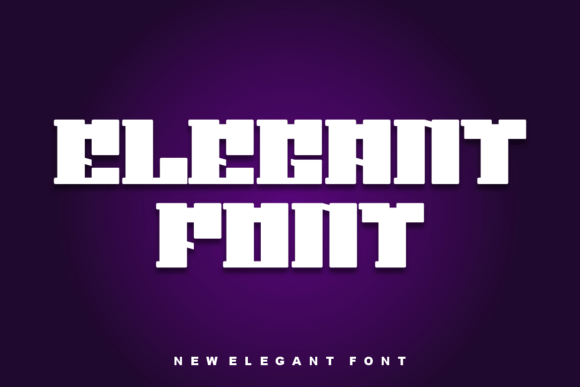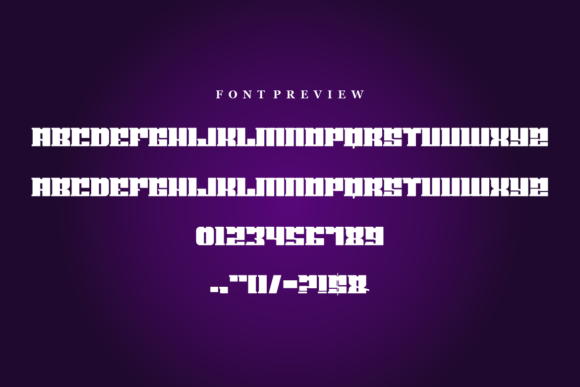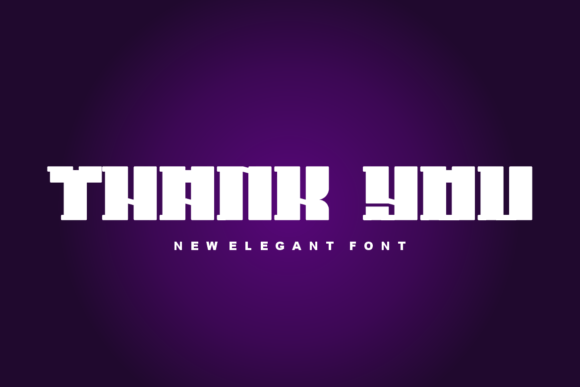
The Perfect Font for Your Next Design Project
Have you ever stared at a blank canvas, waiting for the perfect font to bring your design to life? That’s exactly what happened to us when we discovered the Bagenir Font – a modern display font that’s as bold as it is authentic. With its unique character and versatility, this font is a game-changer for any branding project.
Whether you’re creating a logo, working on an esports project, or simply looking for a font to elevate your design, the Bagenir Font is an outstanding choice. Its wide range of applications makes it a valuable asset for designers, and its modern aesthetic ensures it stays relevant in today’s fast-paced design world.
Bagenir Font Key Features
- Font Family: Bagenir is a sans-serif font family.
- Unique Characteristics: Bagenir features a clean and modern design with a unique blend of geometric and organic elements.
Bagenir Font Review
I recently had the chance to work with the Bagenir Font, and I have to say, it’s a unique and interesting addition to any design project. ✨ Here are some of its strengths:
- Distinctive style**: The Bagenir Font has a distinct, elegant style that sets it apart from more traditional fonts. It’s perfect for designers who want to add a touch of sophistication to their work.
- High legibility**: Despite its unique style, the Bagenir Font is highly legible, making it easy to read even in smaller font sizes.
- Good versatility**: The Bagenir Font comes in a range of weights and styles, making it easy to adapt to different design projects and themes.
Of course, no font is perfect, and the Bagenir Font has some limitations that designers should be aware of:
- Limited language support**: The Bagenir Font may not support all languages, which could be a limitation for designers working on multilingual projects.
- Not ideal for body text**: While the Bagenir Font is great for headings and titles, it may not be the best choice for body text due to its high x-height and unique style.
- Some compatibility issues**: Some designers may experience compatibility issues with the Bagenir Font, particularly in older software or operating systems.
Overall, the Bagenir Font is a great choice for designers who want to add a touch of elegance and sophistication to their work. While it has some limitations, its unique style and high legibility make it a great addition to any design project.
Use Bagenir Font for titles, headings, and emphasis to add a touch of elegance to your designs.
Experiment with different font sizes and styles to create visual hierarchy and balance in your designs.
Bagenir Font is perfect for:
- Book covers and publishing materials
- Wedding and event signage
Alternatives to Bagenir Font for Designers
Monserrat is a popular sans-serif font that is highly legible and versatile. It’s ideal for use in digital design, particularly for headings and titles, due to its modern and sleek appearance. Montserrat is more geometric than Bagenir, with cleaner lines and a more condensed feel, making it suitable for use in tight spaces.
Merriweather is a classic serif font that is perfect for use in body text and longer passages. Its traditional and elegant feel makes it suitable for use in print design, particularly in books, magazines, and other publications. Merriweather is more formal than Bagenir, with a more traditional feel, but it lacks the modern flair of Bagenir.
Open Sans is a clean and modern sans-serif font that is highly legible and versatile. It’s ideal for use in digital design, particularly for body text and longer passages, due to its clear and readable appearance. Open Sans is more straightforward than Bagenir, with a more neutral feel, making it suitable for use in a wide range of design applications.